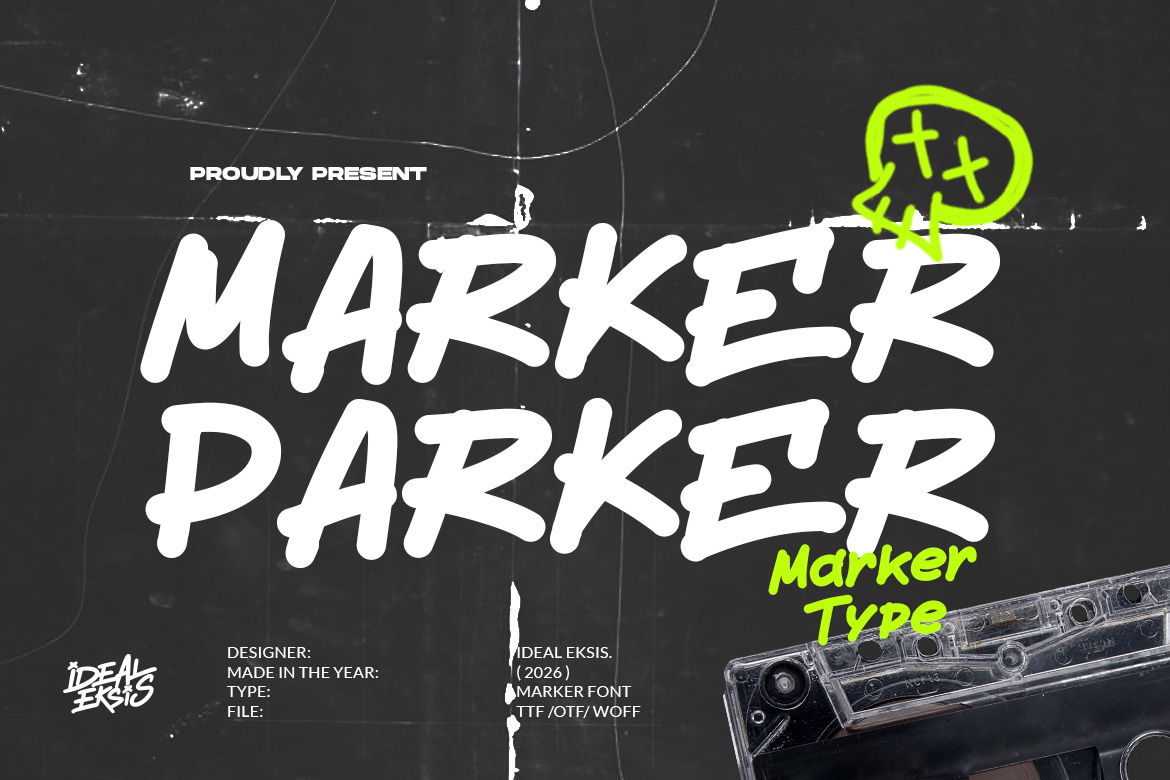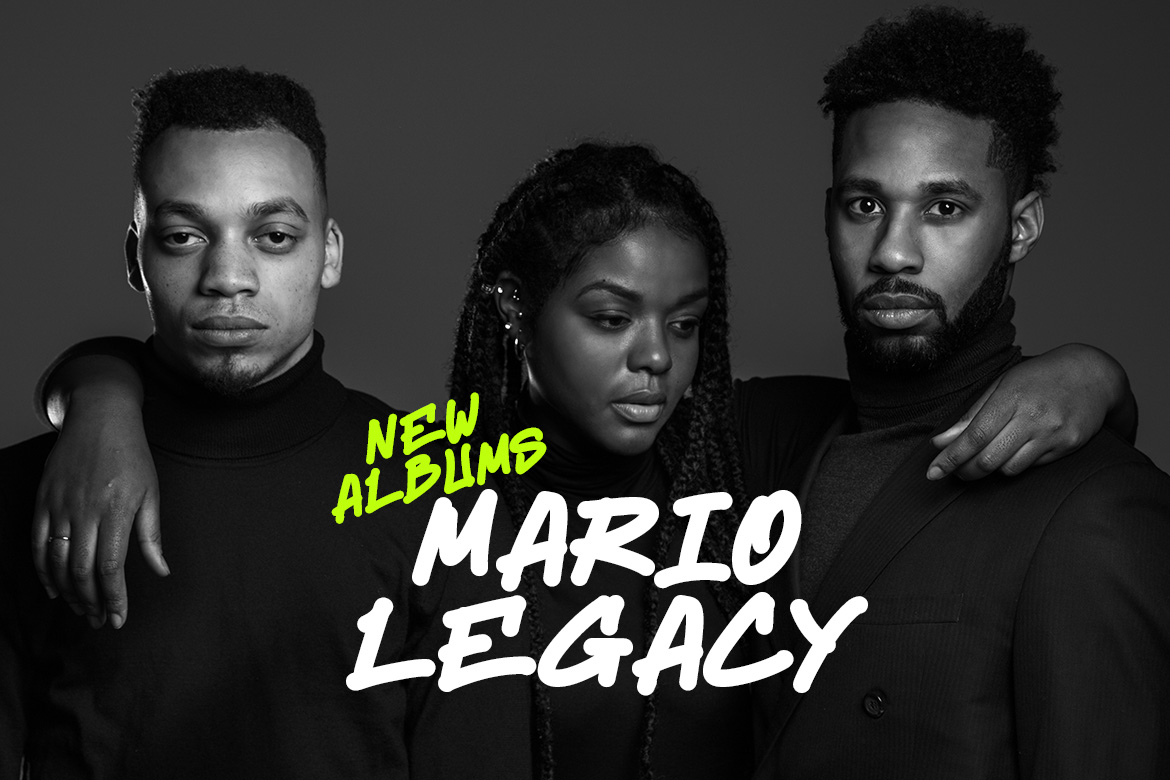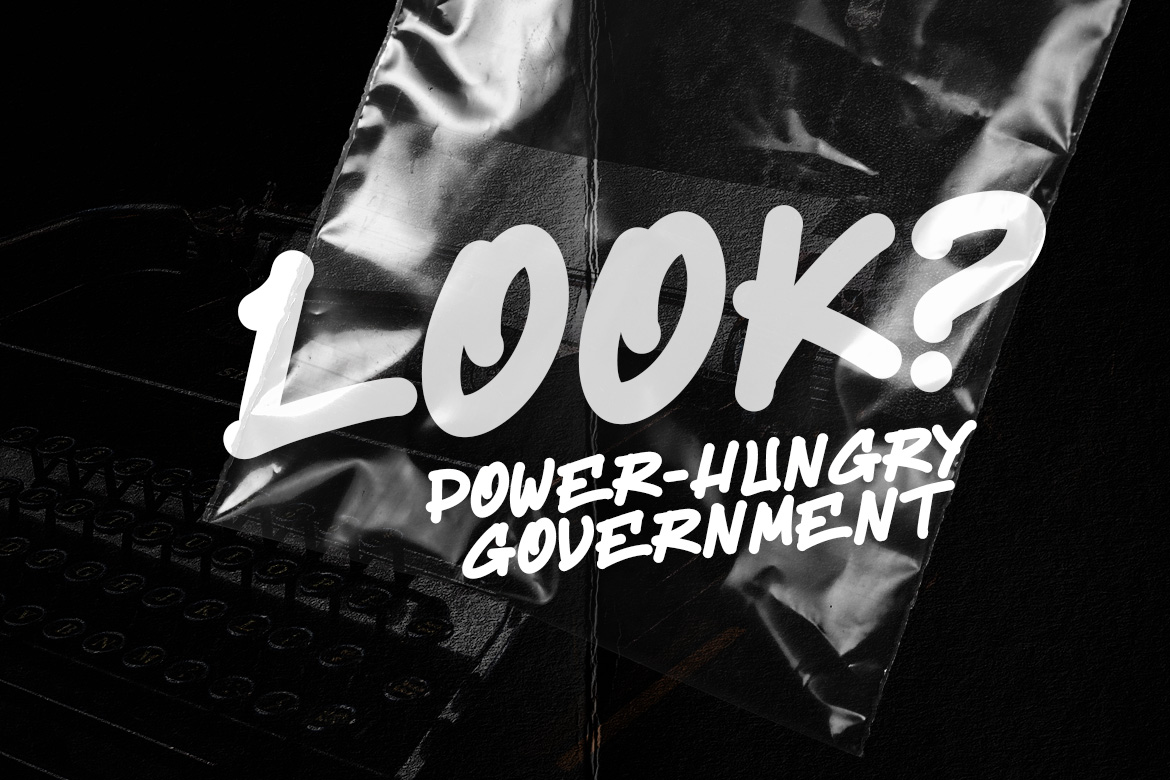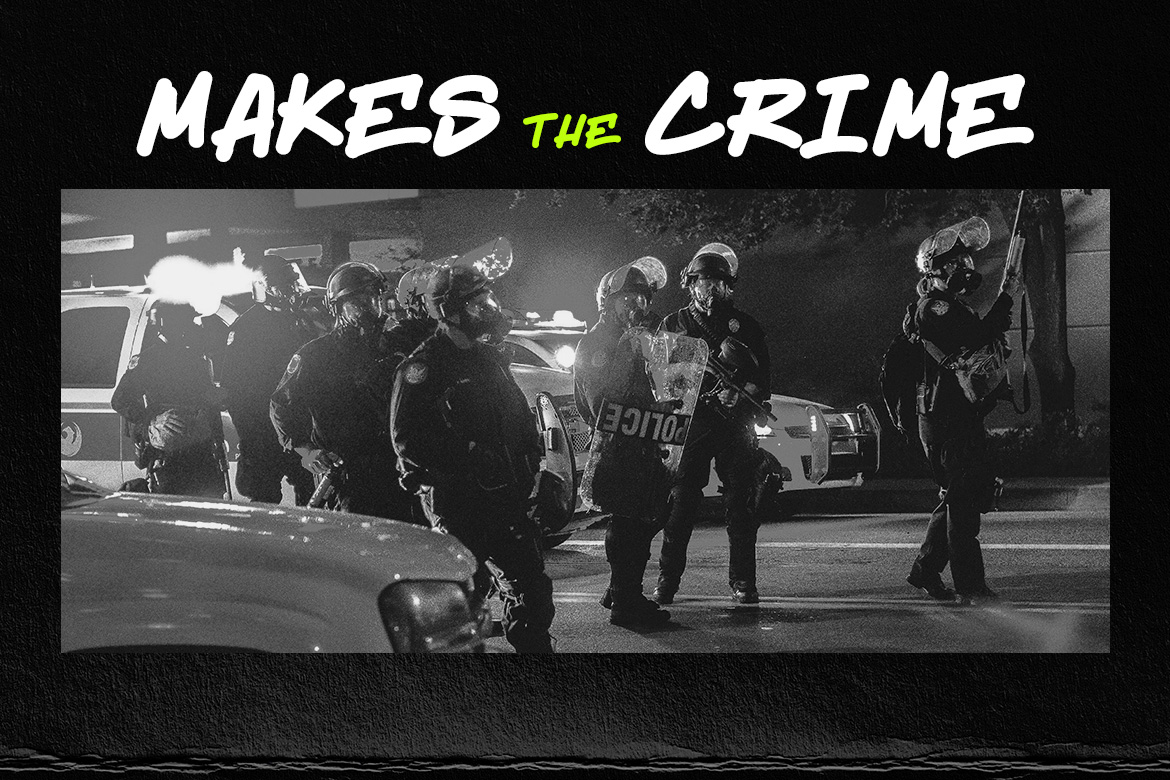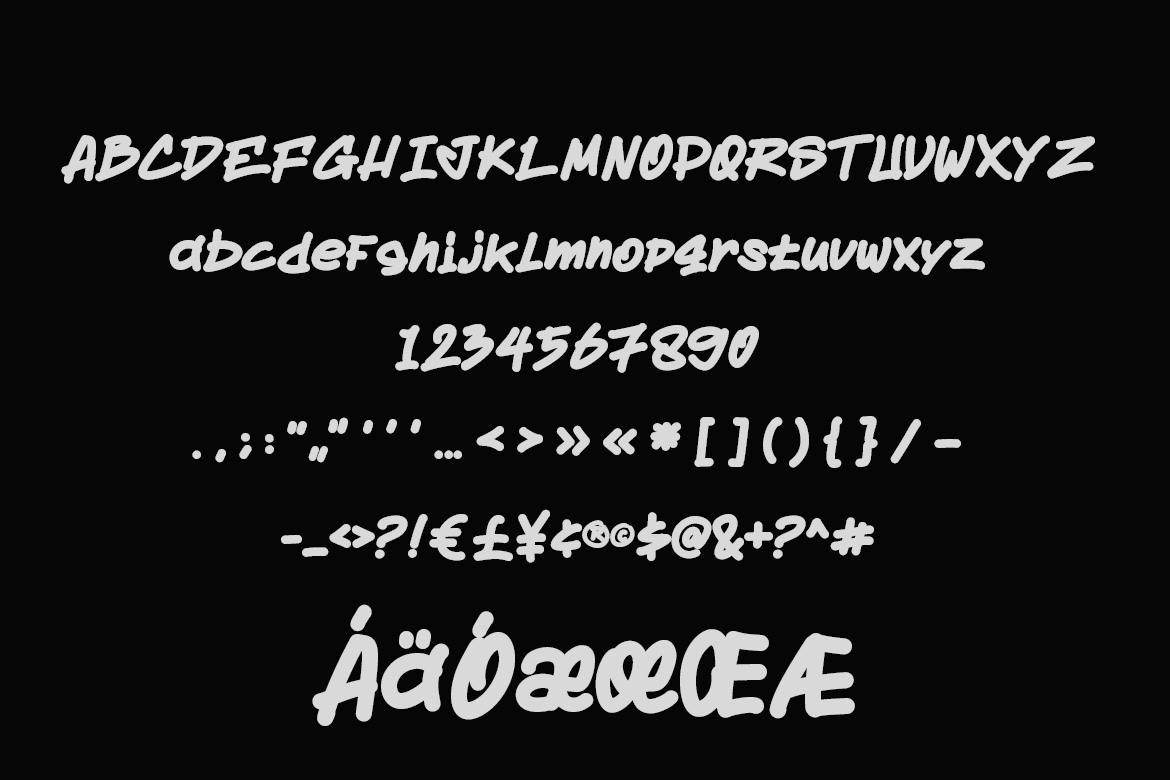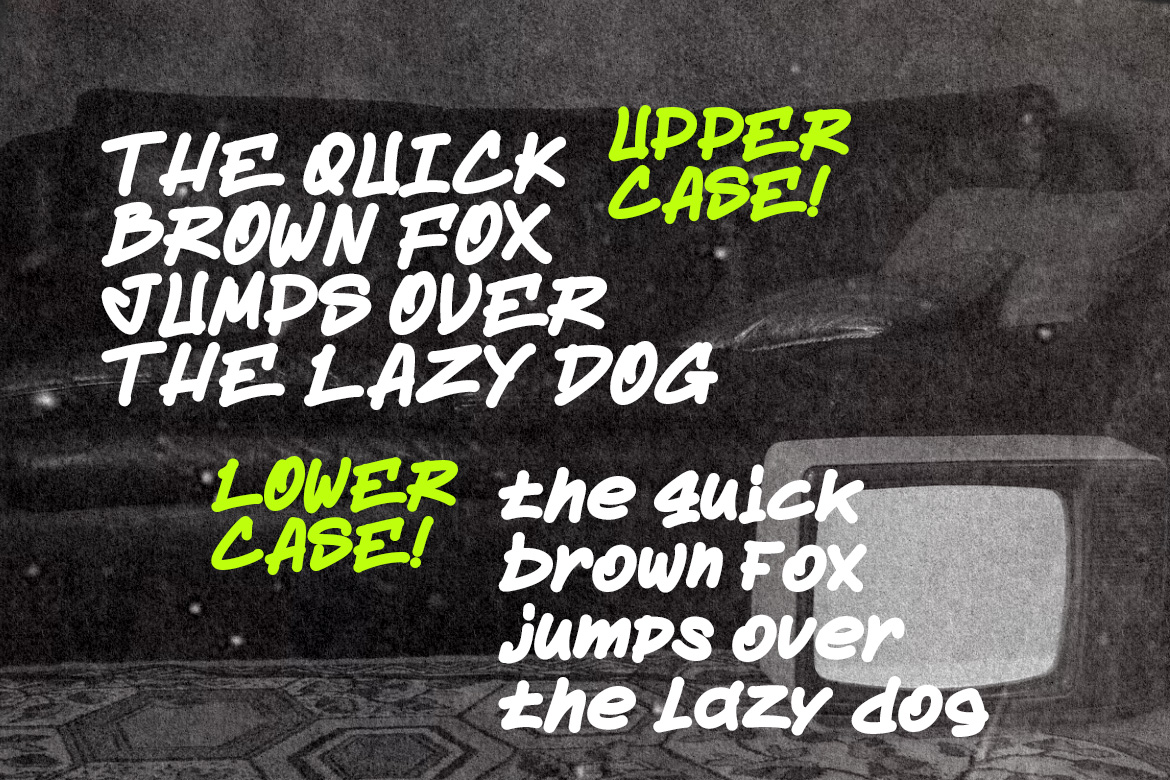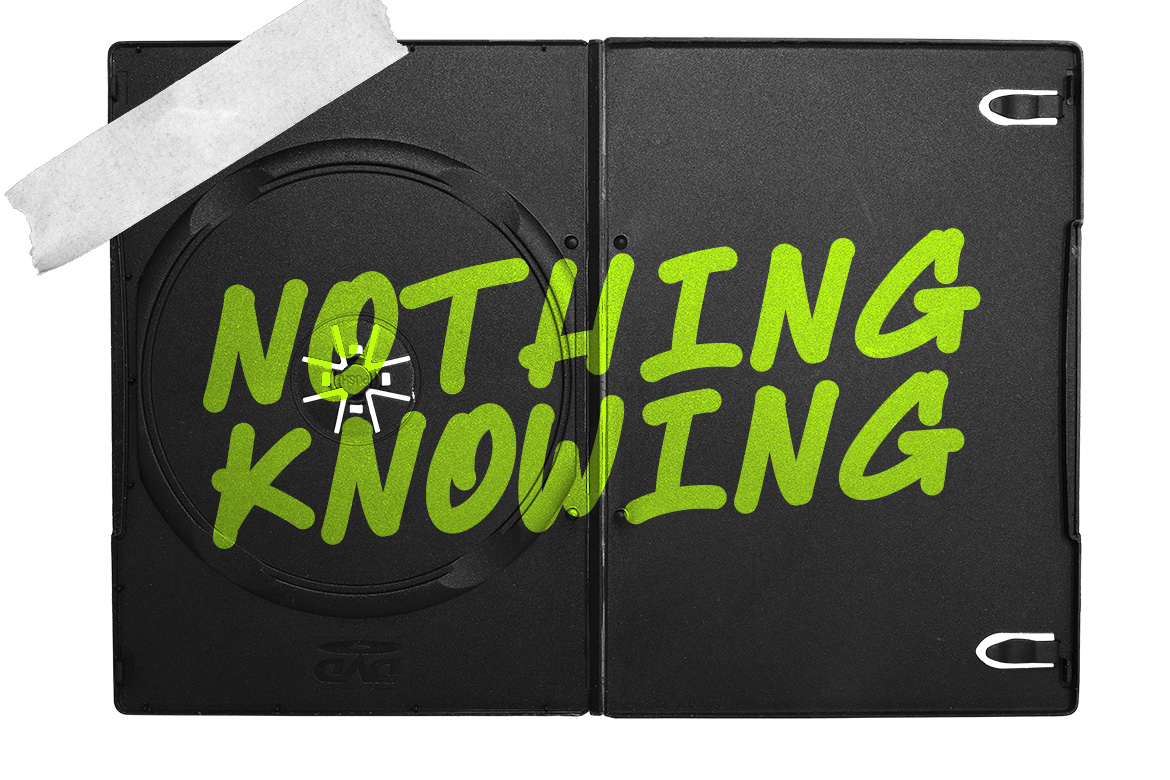
Display typeface · Latin
Marker Parker
The font showcases heavy, gestural strokes reminiscent of a felt-tip marker used in street art. Each letterform is characterized by its bold weight and rounded terminals, creating a sense of immediacy and raw energy. The slight variations in stroke thickness and the organic, hand-drawn curves contribute to a gritty, DIY aesthetic. This typeface is highly effective for large-scale display use, such as in concert posters, skate culture graphics, and expressive social media content. Its informal nature provides a strong visual personality that breaks away from traditional typographic structures. What's Included? Uppercase & Lowercase Numbers & Punctuation Alternates & Ligature Multilingual Support Format File : TTF & OTF,WOFF,WOFF2 Works on PC & Mac Thank you for choosing this font!